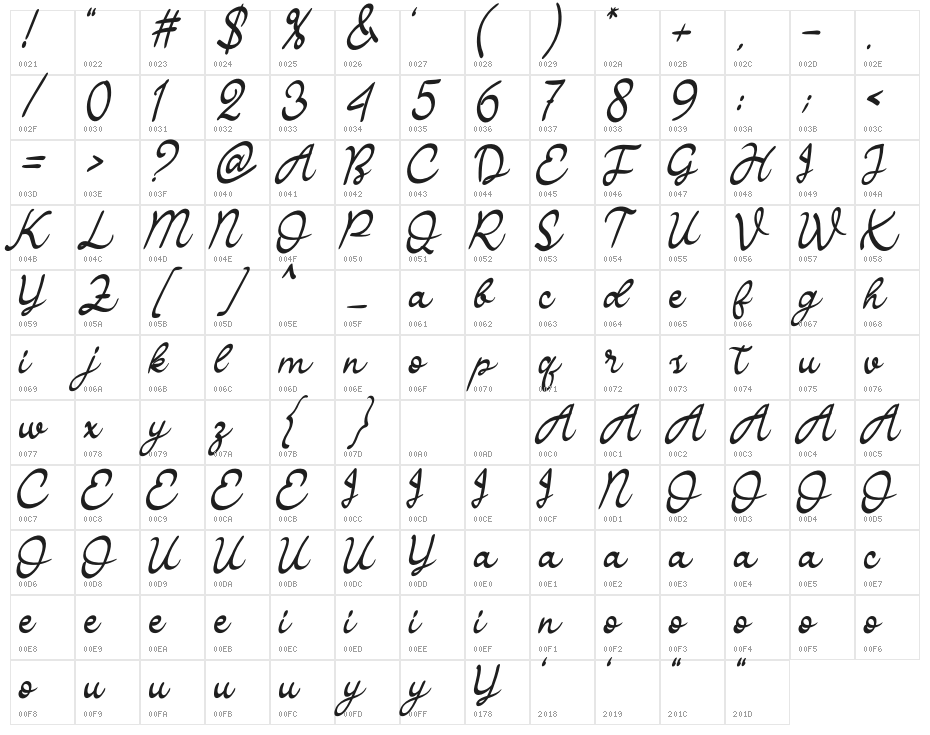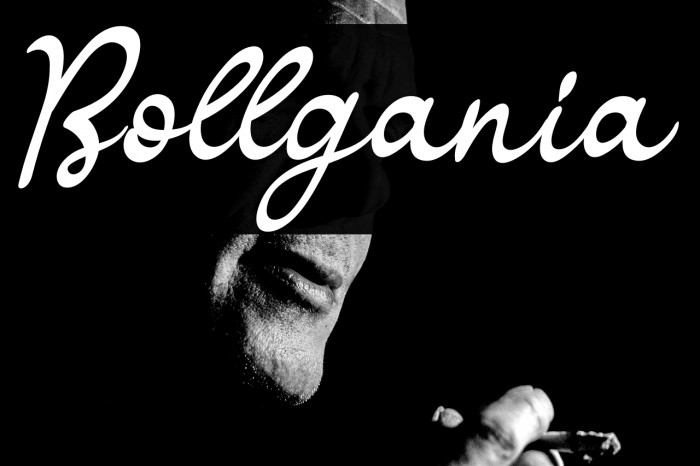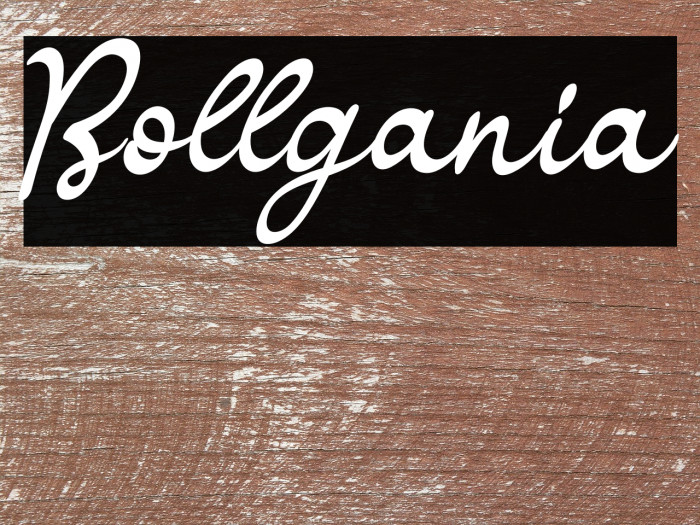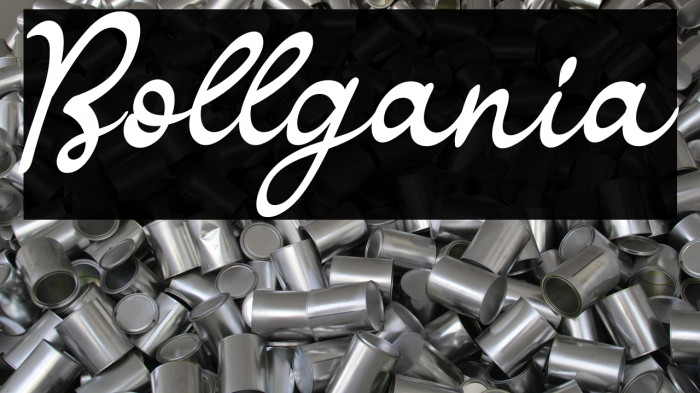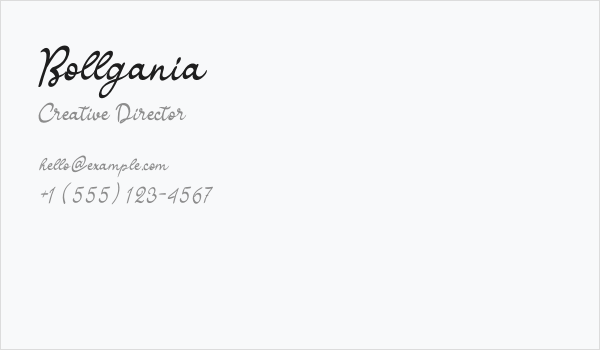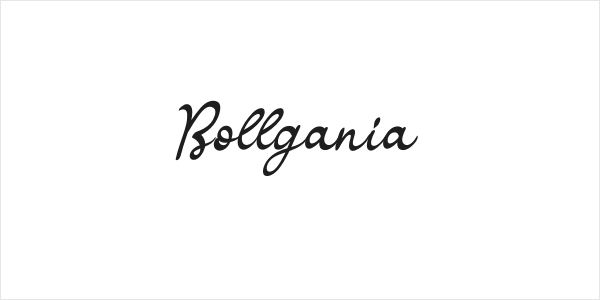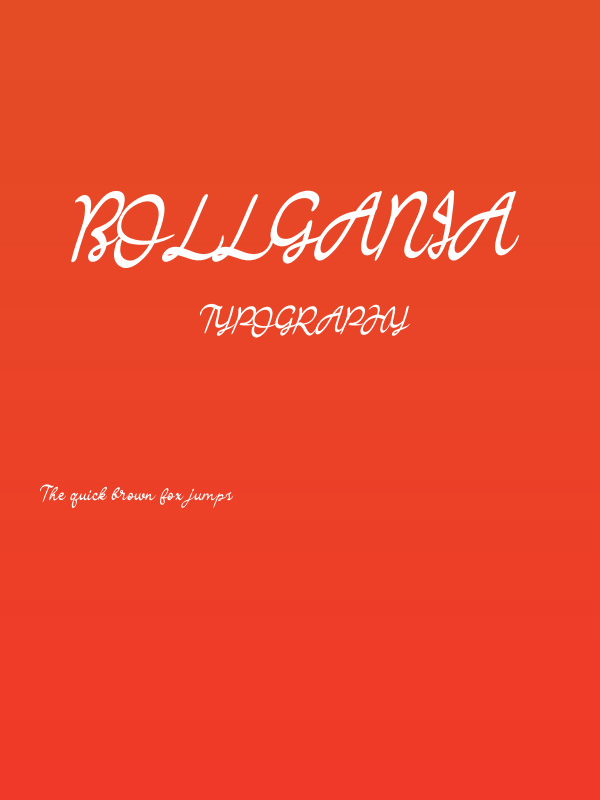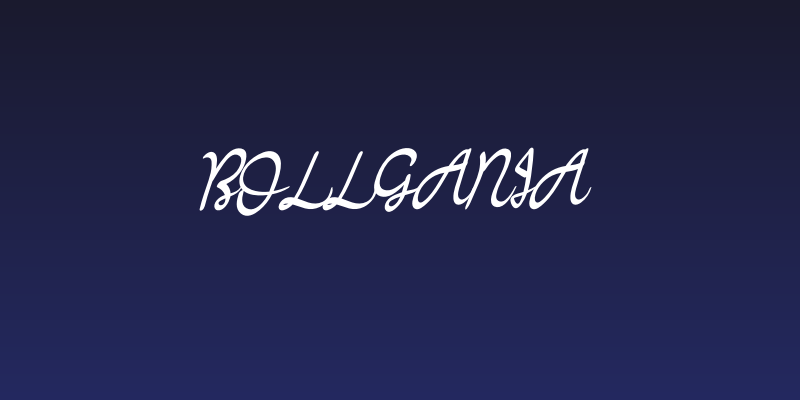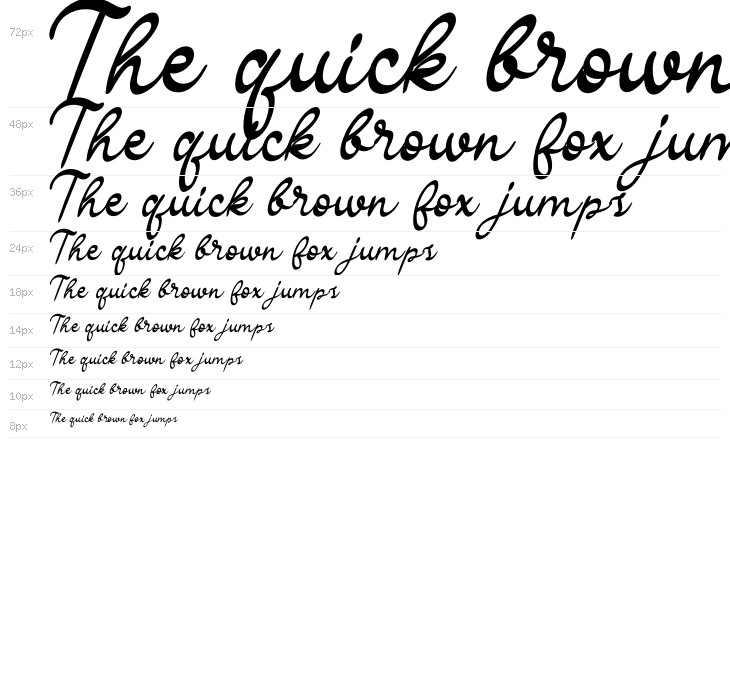
Bollgania Font
Bollgania Description
This font exudes a classic and elegant script style, characterized by its flowing, cursive letters that connect seamlessly. The uppercase letters are bold and prominent, while the lowercase letters maintain a graceful and fluid form. The numerals and special characters are designed to complement the overall script style, maintaining a consistent and cohesive look. The font's design is reminiscent of traditional handwriting, offering a personal and sophisticated touch to any project.
| Use Case | Logos, Invitations, Personal stationery |
| Proposed Projects | Ideal for wedding invitations, greeting cards, elegant branding, and personal stationery. |